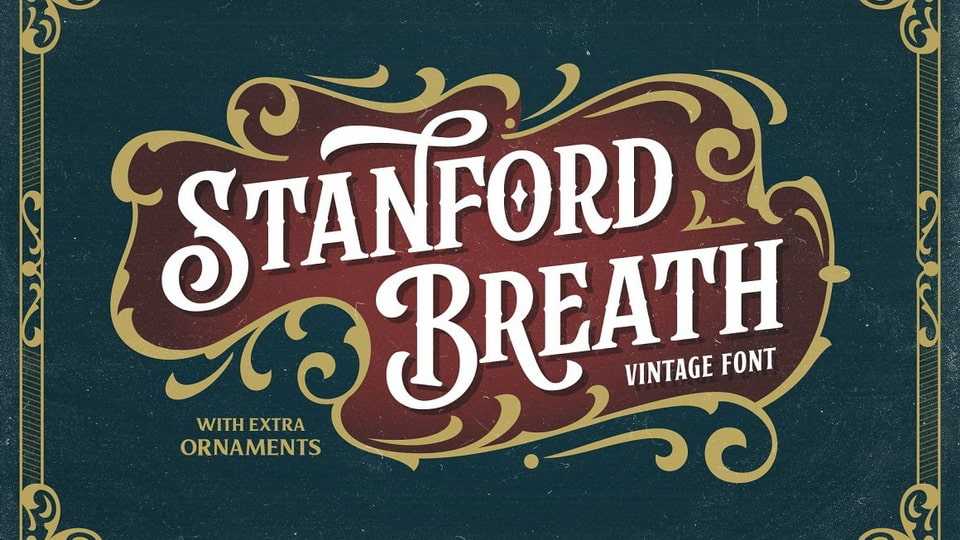
Download Stanford Breath font, a vintage decorative typeface inspired by the western typography and Victorian style. Collected from many references such as vintage signage, logo, badges, and old-fashioned graphics, Stanford Breath is complete with extra ornaments that look great to combine.